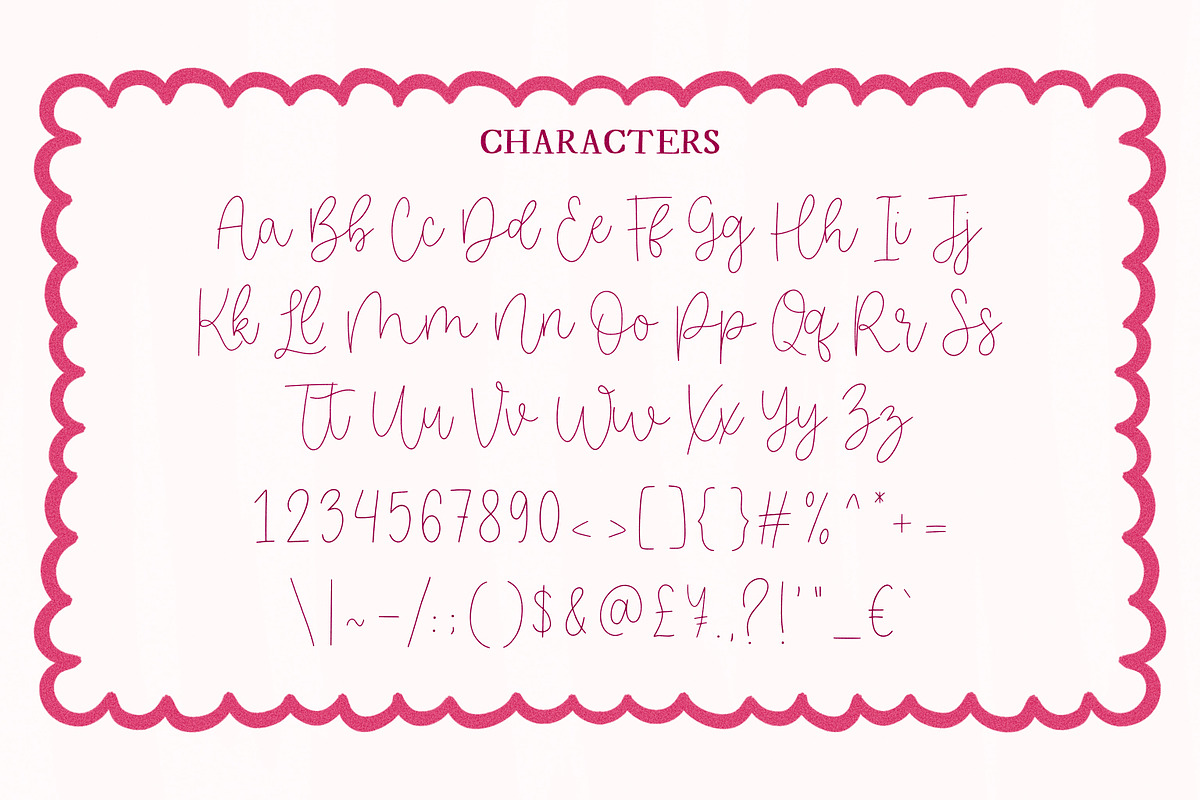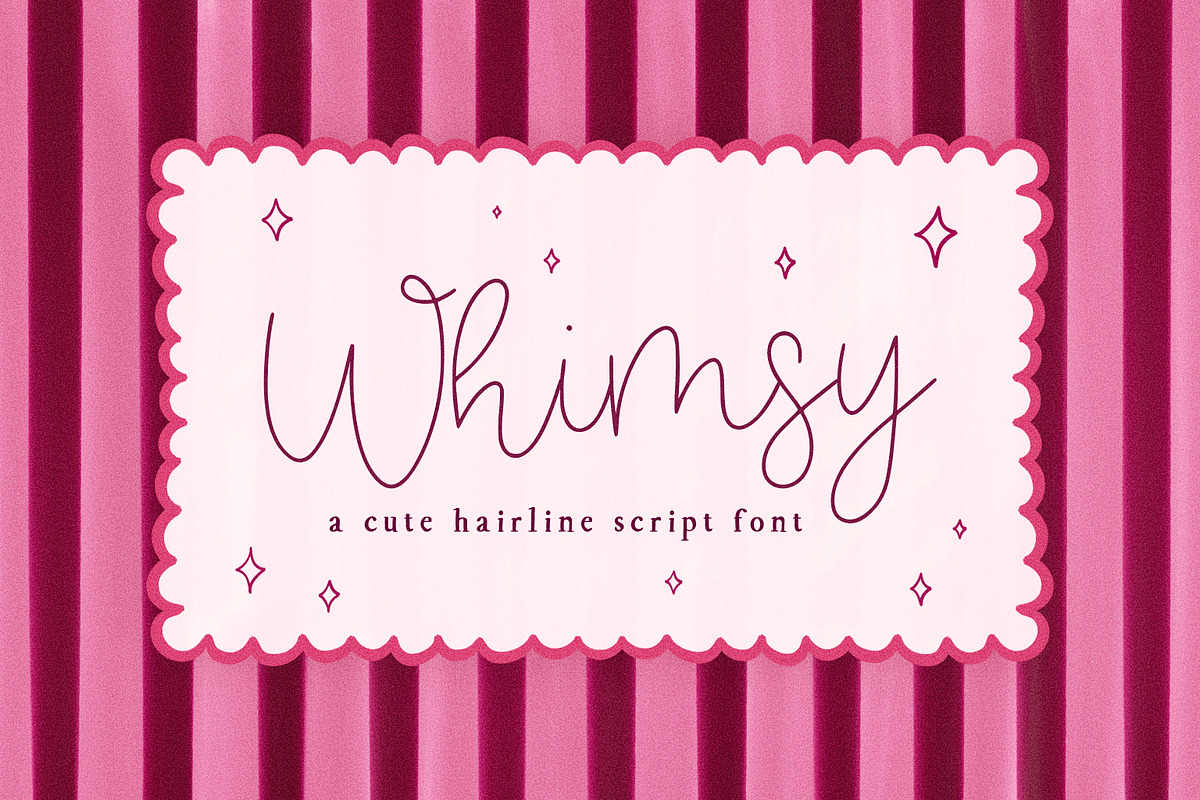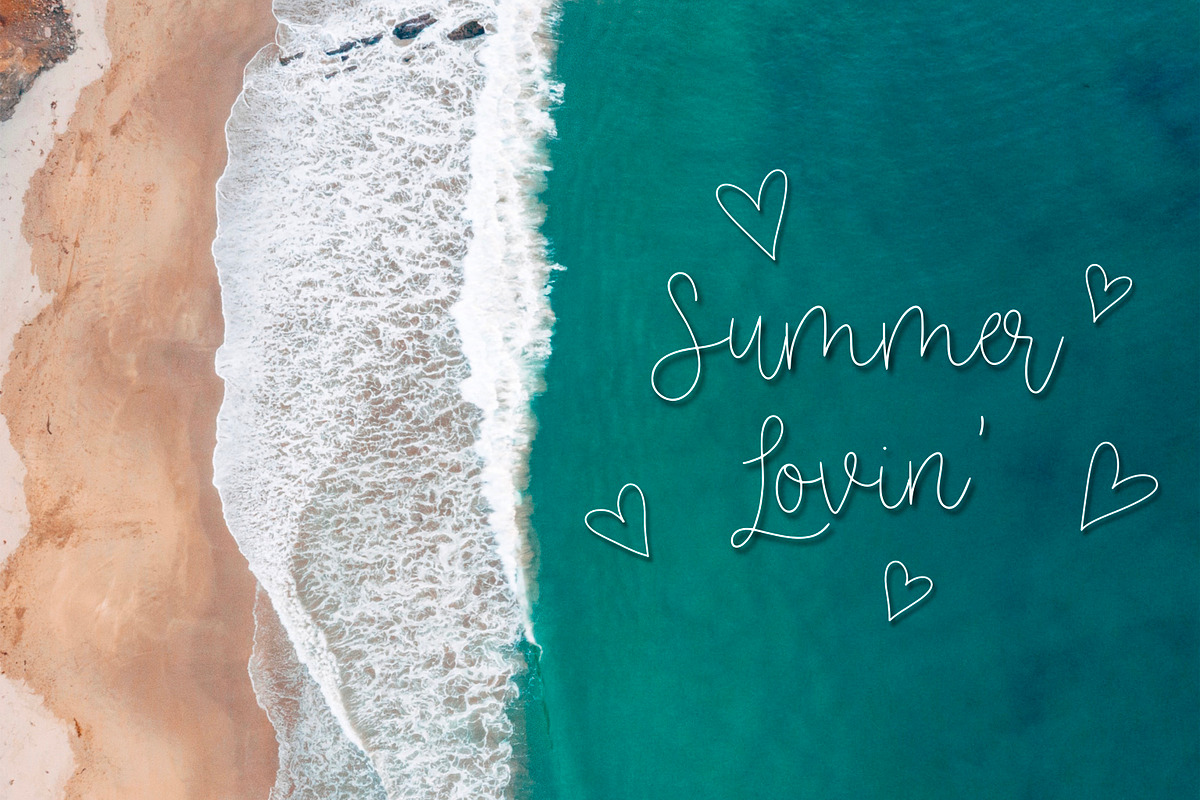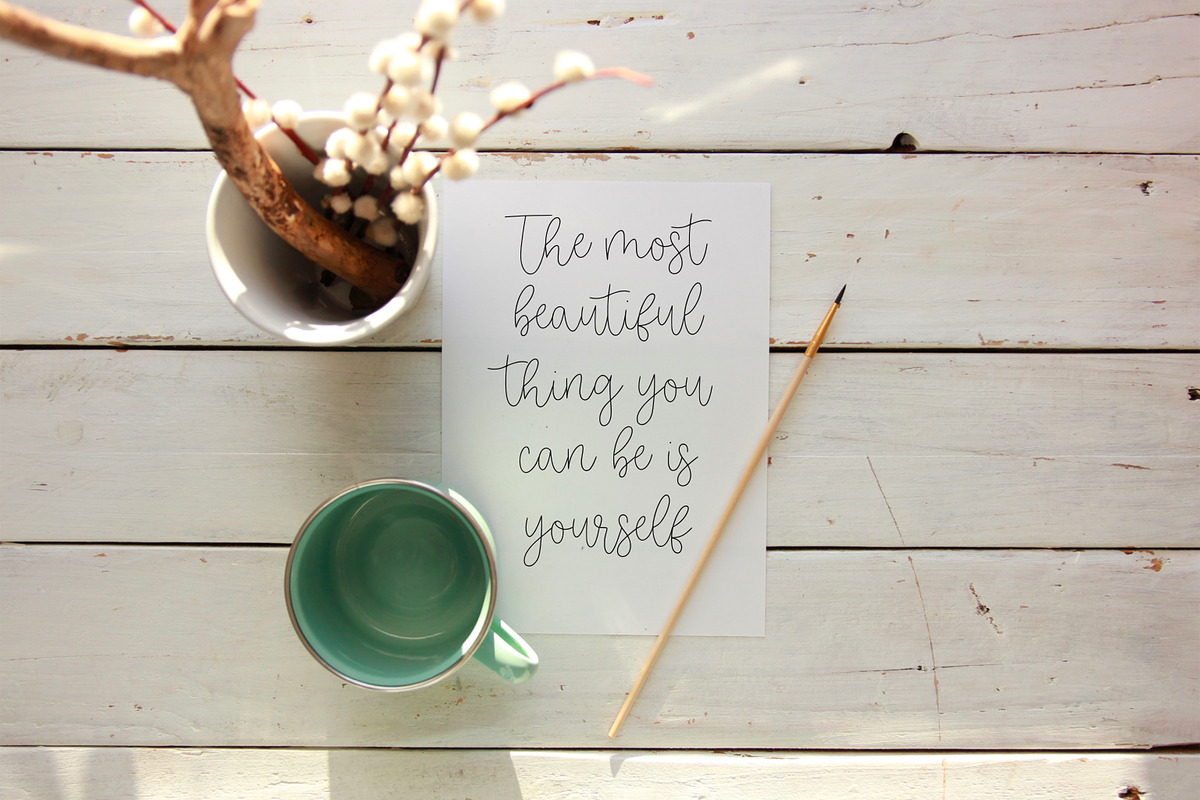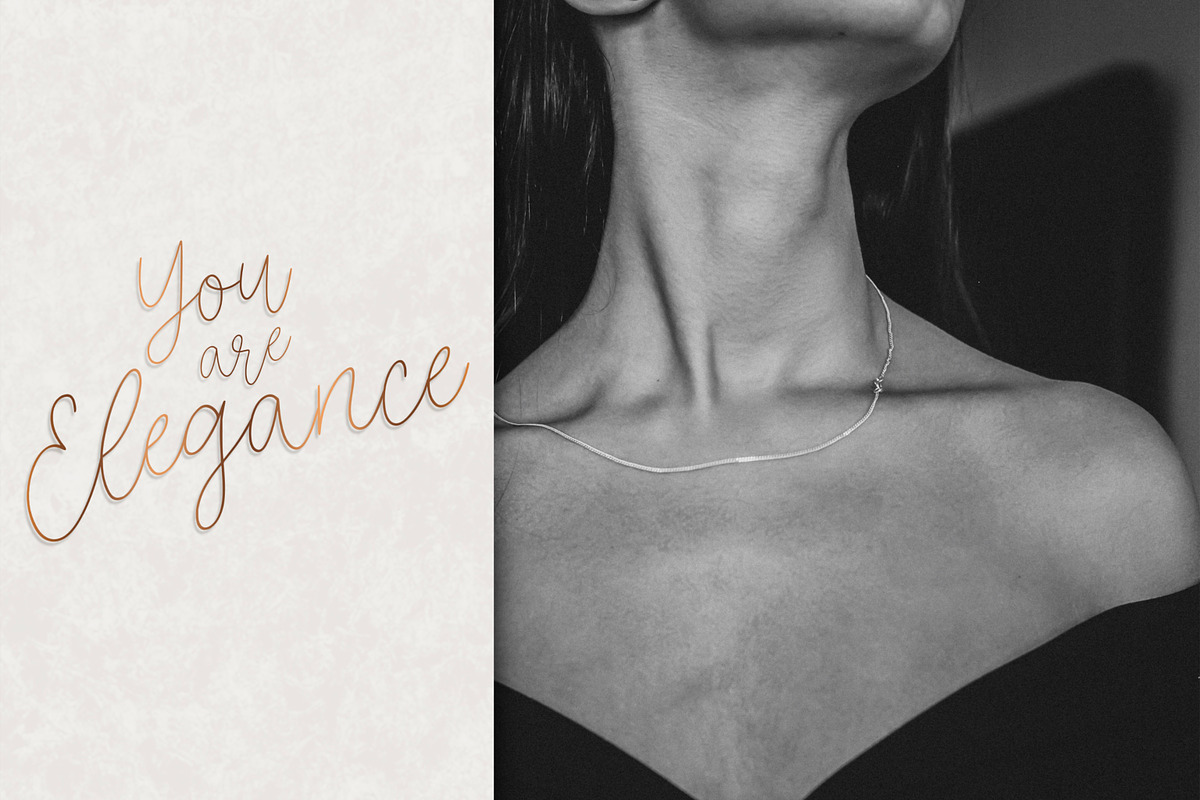
Whimsy Hairline Script Font
Introducing the Whimsy handwritten/hand drawn font. This unique, thin monoline font will add a bouncy, fun, handmade touch to your design! Due to its versatility, it would be great for formal and elegant designs, as well as for casual, playful occasions too!